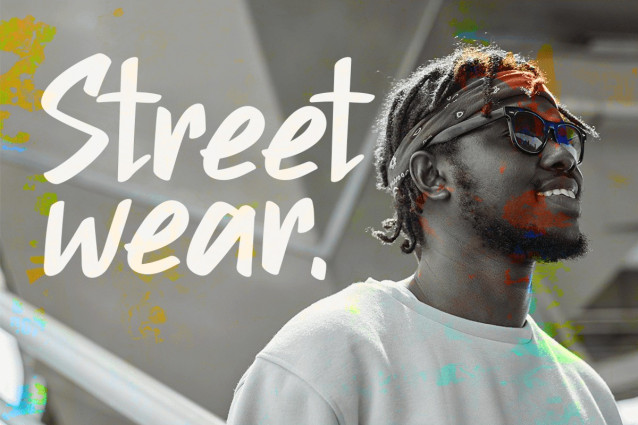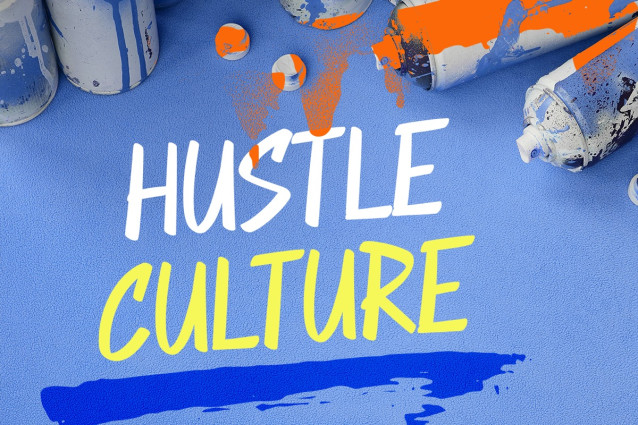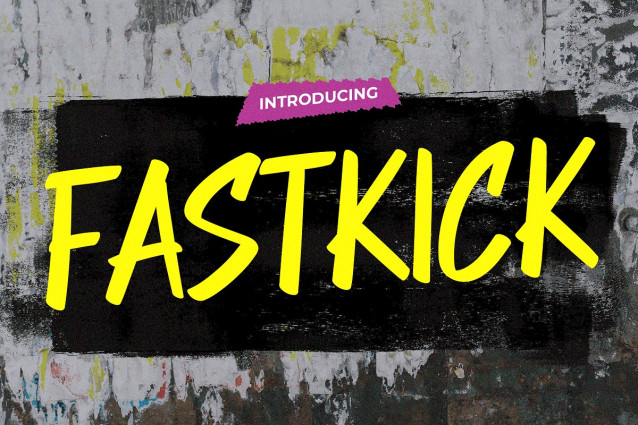
Fast Kick Font
Fast Kick Font – the font that embodies urban flair with a bold display and graffiti style! Whether you’re in the world of fashion, creating edgy logos, or adding an urban touch to quotes, invitations, posters, greeting cards, packaging, branding, cover albums, events, or postcards, Fast Kick is your go-to choice for unleashing an unmistakable street-smart vibe. This typeface exudes an energy that resonates with the dynamic pulse of urban culture, making it the perfect companion for those who want their designs to pop.